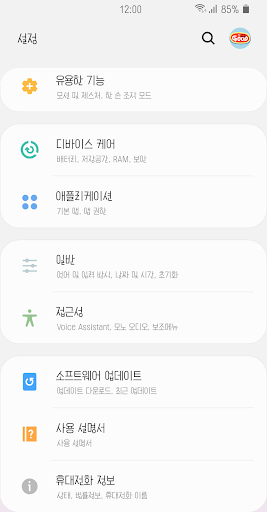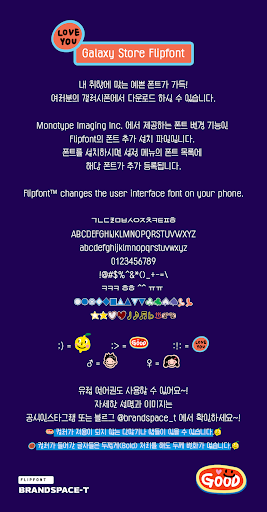
BSTLemonSans
This typeface is sensuous Gothic with a refreshing scent. The size of the initial consonants is large, so it is lively and lively, and the shape of the consonants is sour and bouncy. BSTLemonSans, "soon, my, my own brand" with a new and fresh Gothic feel.
+ ;) A pretty smile that is the point dingbet of the Brandspace-T!
+ ;) A pretty smile that is the point dingbet of the Brandspace-T! A lemon full of freckles!
+ ;> "Good Sticker" Dingbet!
+ :!: "Love Sticker" Dingbet!
+ ♂ (boy) ♀ (girl) There is!
+ The colored characters do not change their thickness even if they are thickened.